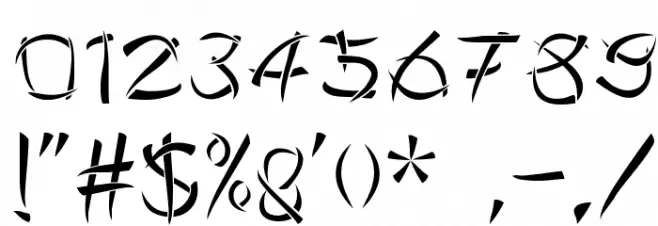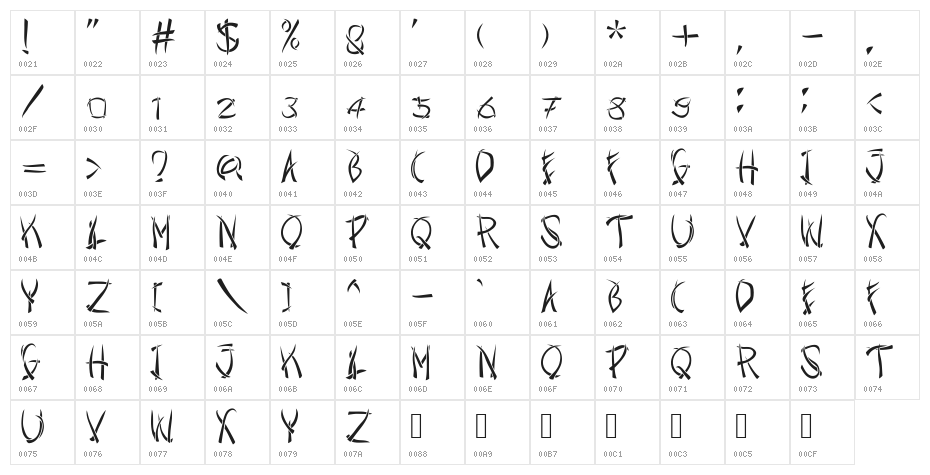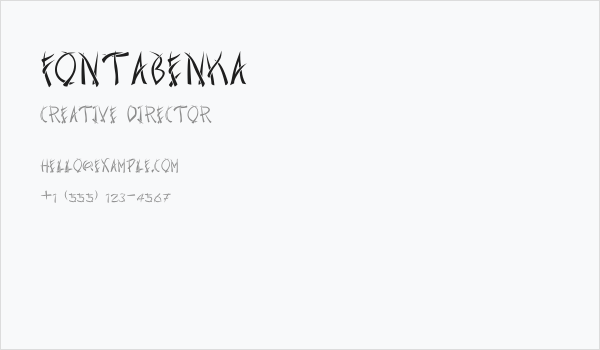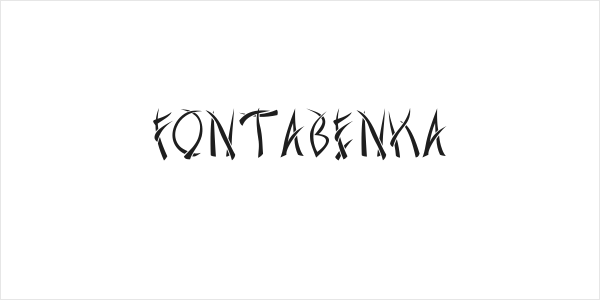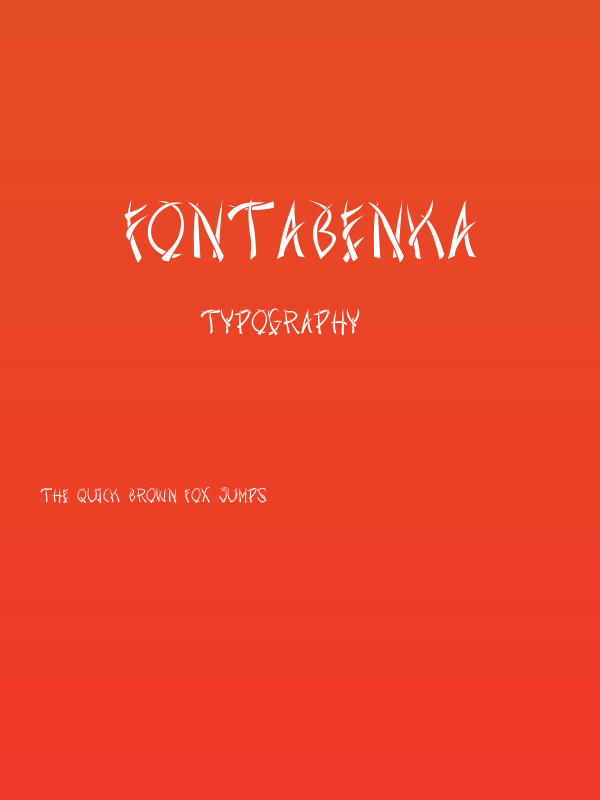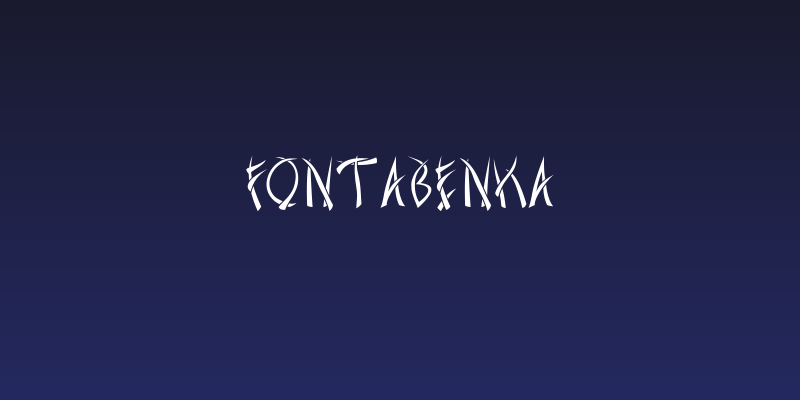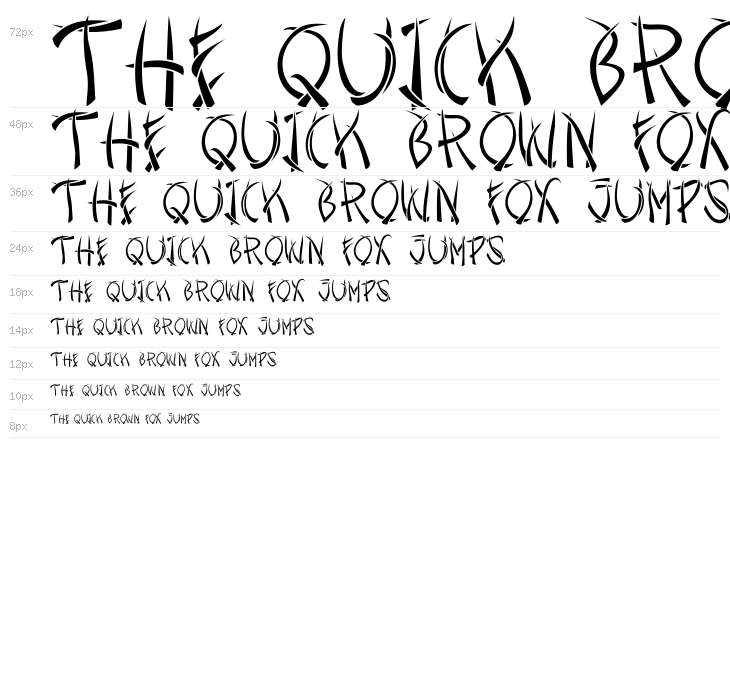
Fontabenka Font
Fontabenka Description
This font features a unique and artistic design with sharp, angular strokes and a dynamic flow. The characters are crafted with a sense of motion, resembling calligraphic brush strokes that give it a distinct, edgy appearance. The uppercase and lowercase letters maintain a consistent style, with exaggerated curves and pointed ends that create a striking visual impact. The numbers and special characters follow the same design principles, ensuring a cohesive look across all elements. This font's bold and expressive nature makes it stand out, ideal for creative and attention-grabbing projects.